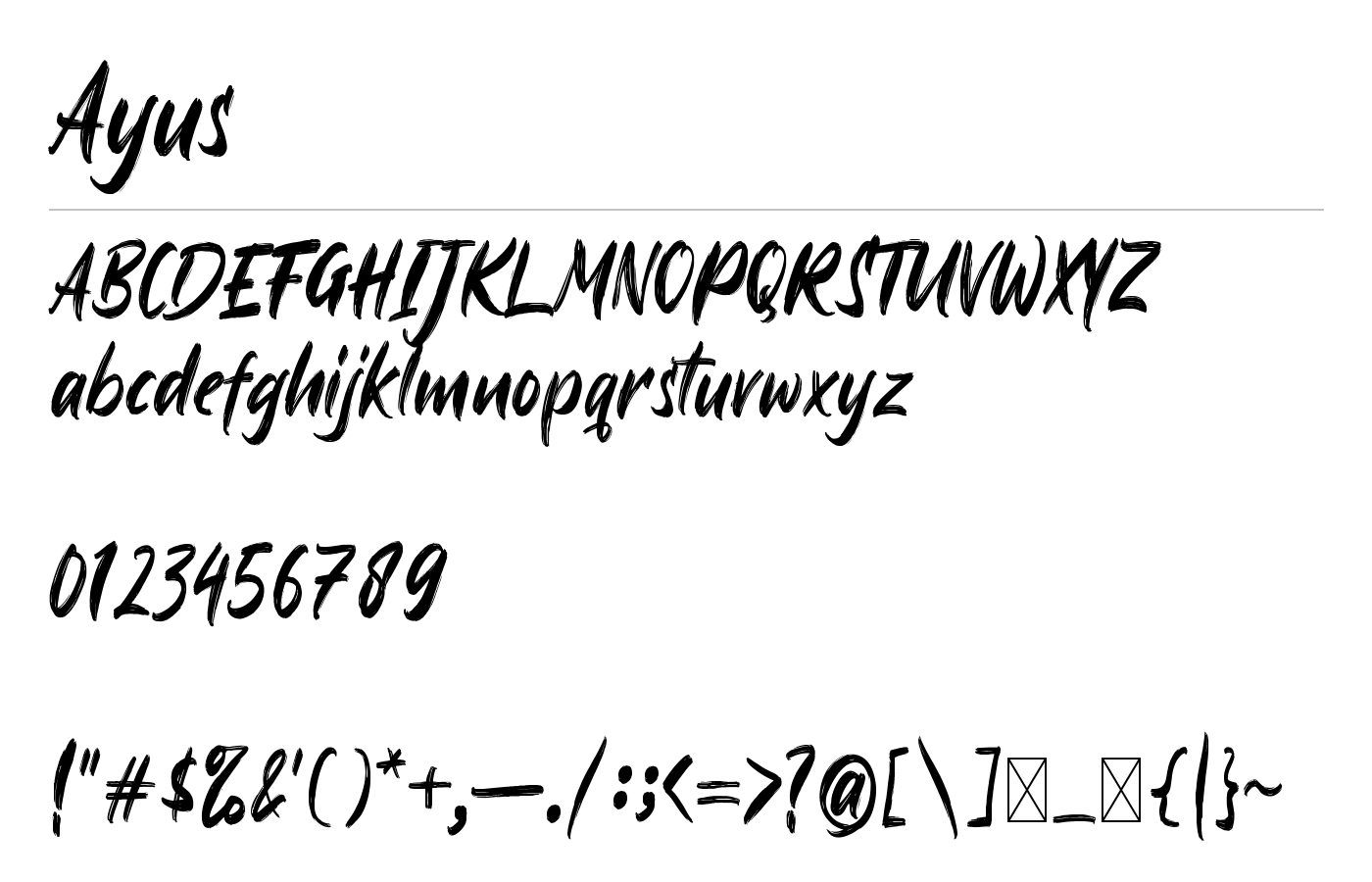
Ayus is a lively brush script font characterized by its bold, textured strokes and an informal, hand-painted appearance. It conveys a sense of energy and creativity, making it a great choice for eye-catching headlines, logos, and packaging that aim to feel personal and artistic. Its dynamic style works well in designs that want to evoke spontaneity and a handcrafted touch.
Ayus Font
About Ayus Font